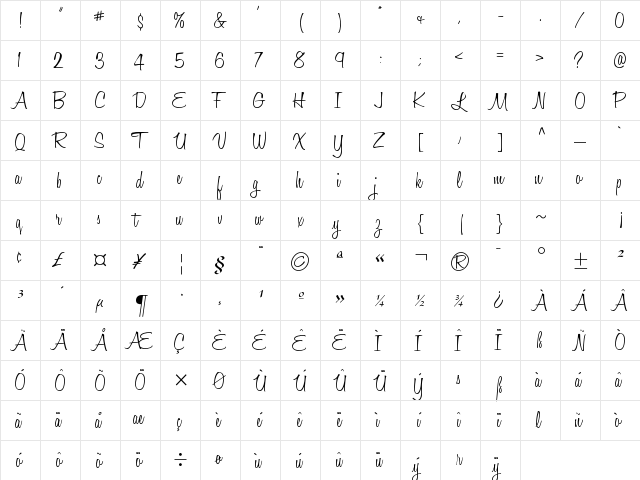
Honey Script Light Font Preview
Design Context for Honey Script Typeface
Honey Script flows with the natural rhythm of handwritten lettering, making it ideal for designs that call for warmth and personal expression. Its slender proportions lend an understated elegance to any composition.
Font Pairing: Combine Honey Script with a simple geometric sans for maximum contrast — the tension between flowing curves and clean structure is a classic typographic pairing.
Pro Tip: Pair Honey Script with a clean sans-serif for supporting text. The contrast between fluid script and geometric structure creates an elegant typographic hierarchy.